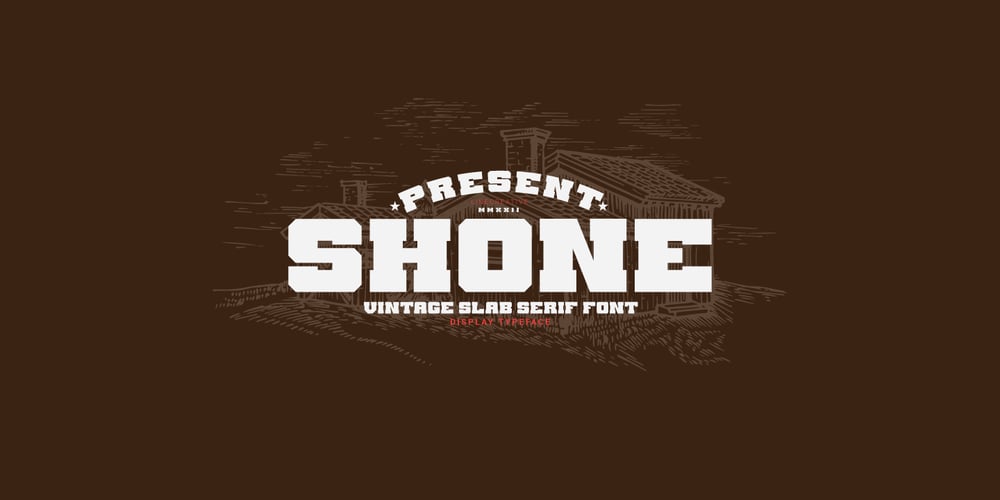
Shone Font Family was designed by Ari Juanda and published by Linecreative. Shone contains 1 styles and family package options. Shone slab serif inspired by vintage style with a touch of classic style. This font is built with solid foundations, strong visuals, old-school movement, and a modern minimalist style. Shone is perfect for Jersey , athletic, poster, branding projects, Logo design, Clothing Branding, product packaging, for magazine titles. for something with the theme of sports, album title, etc